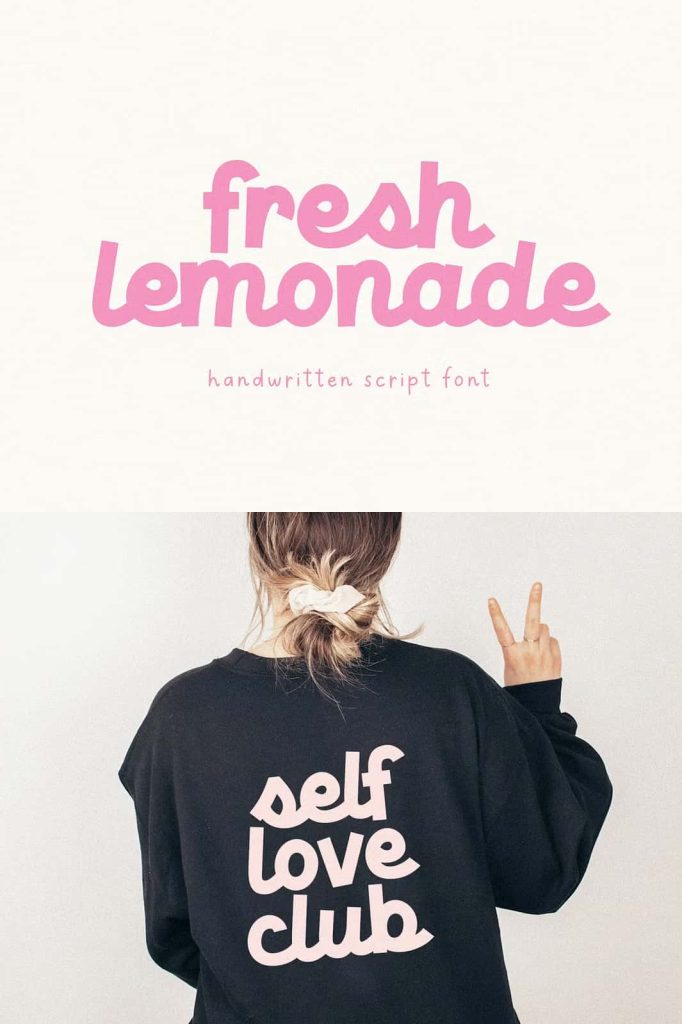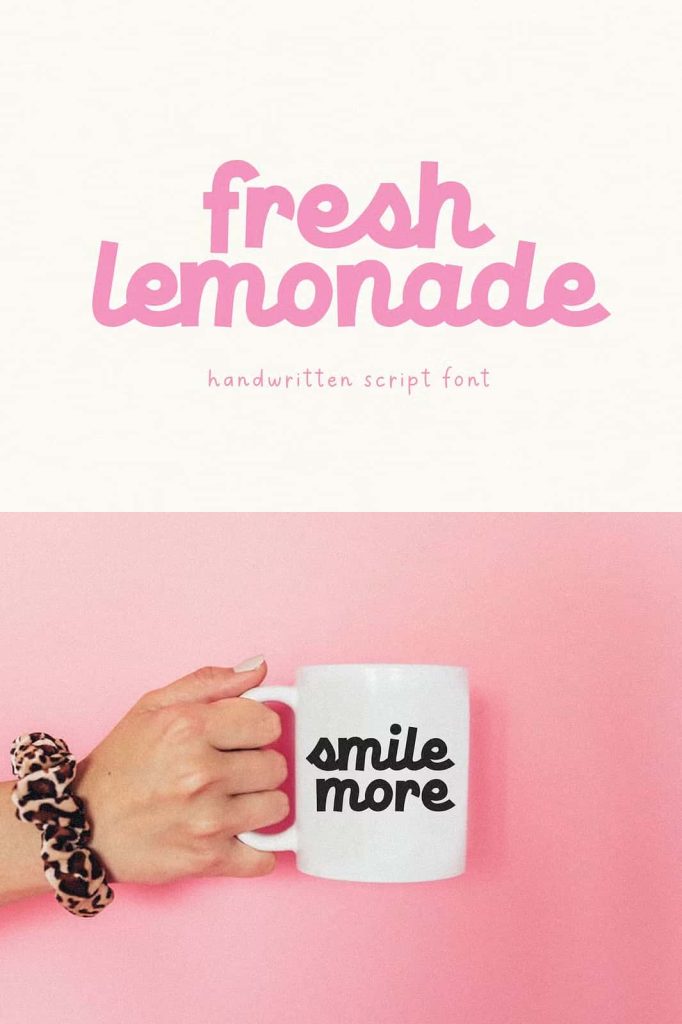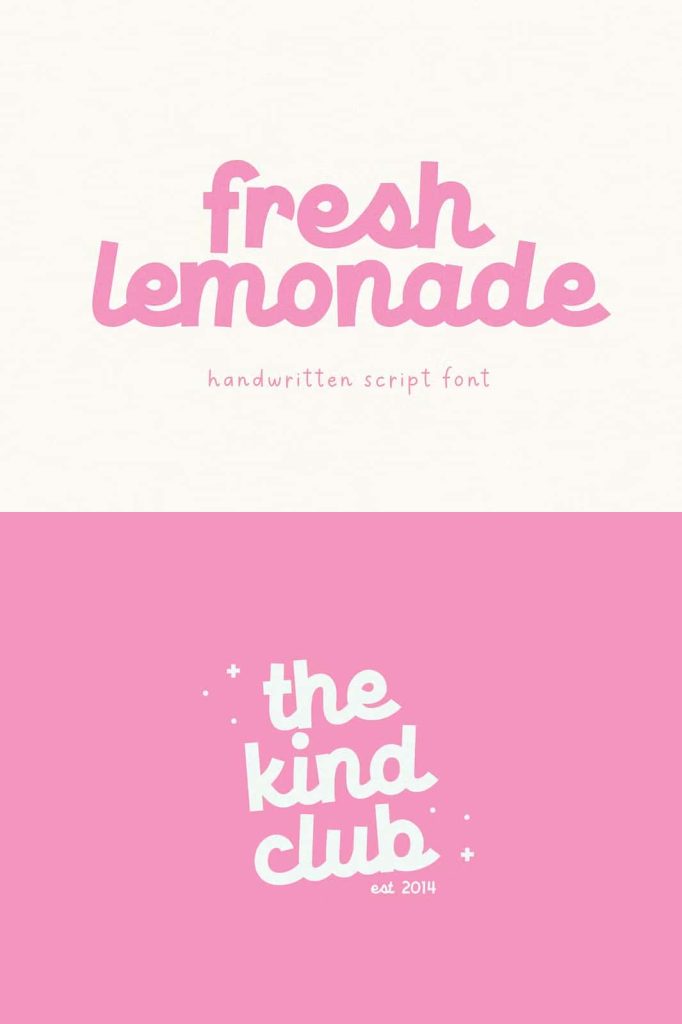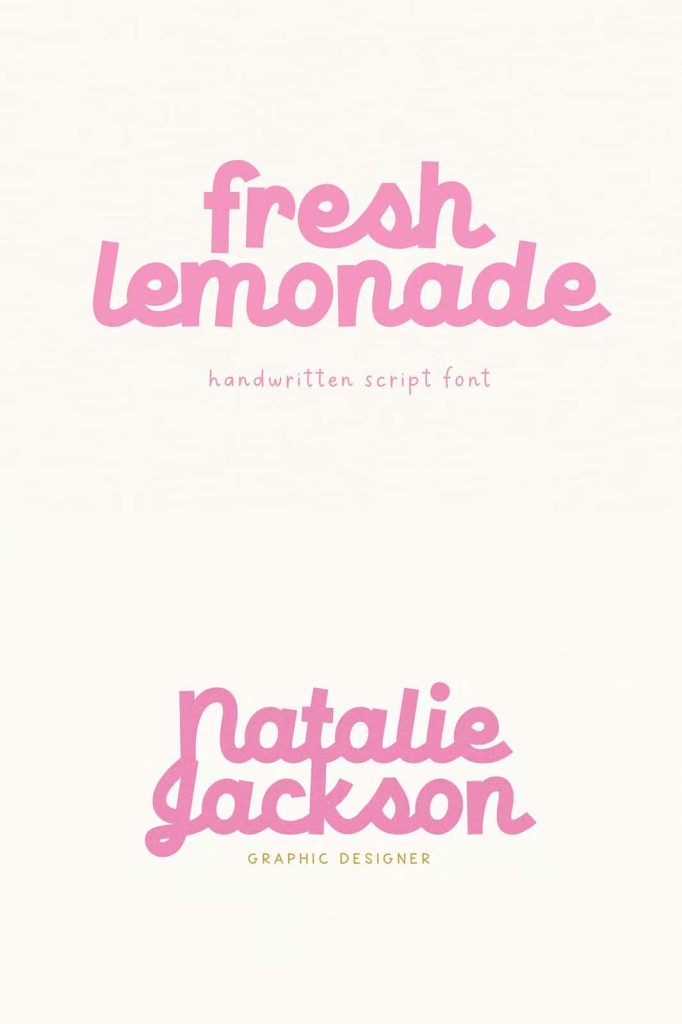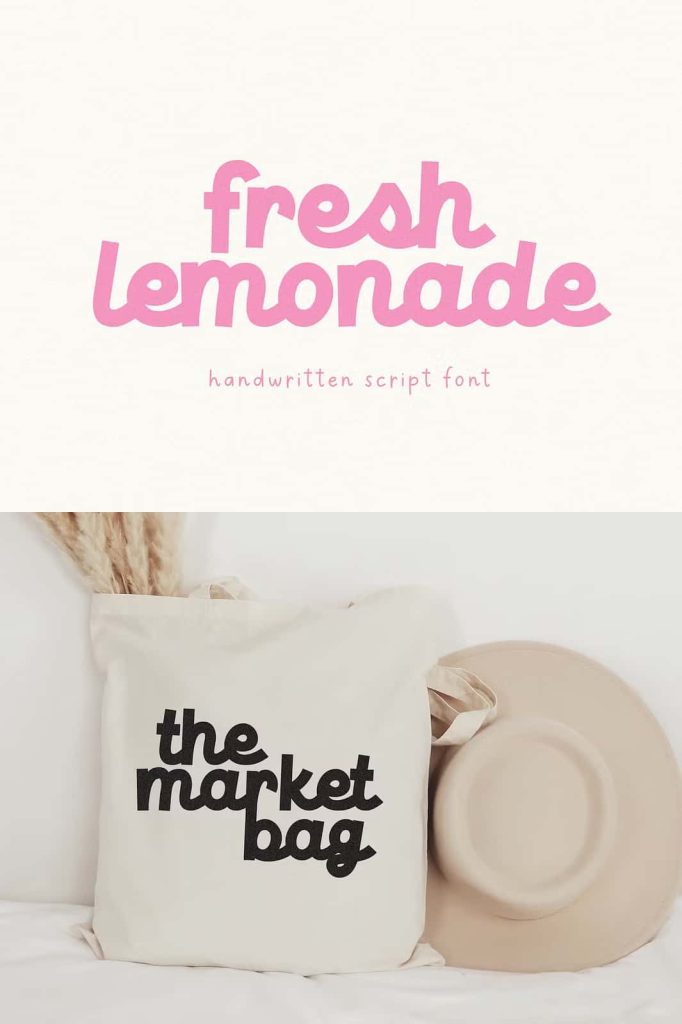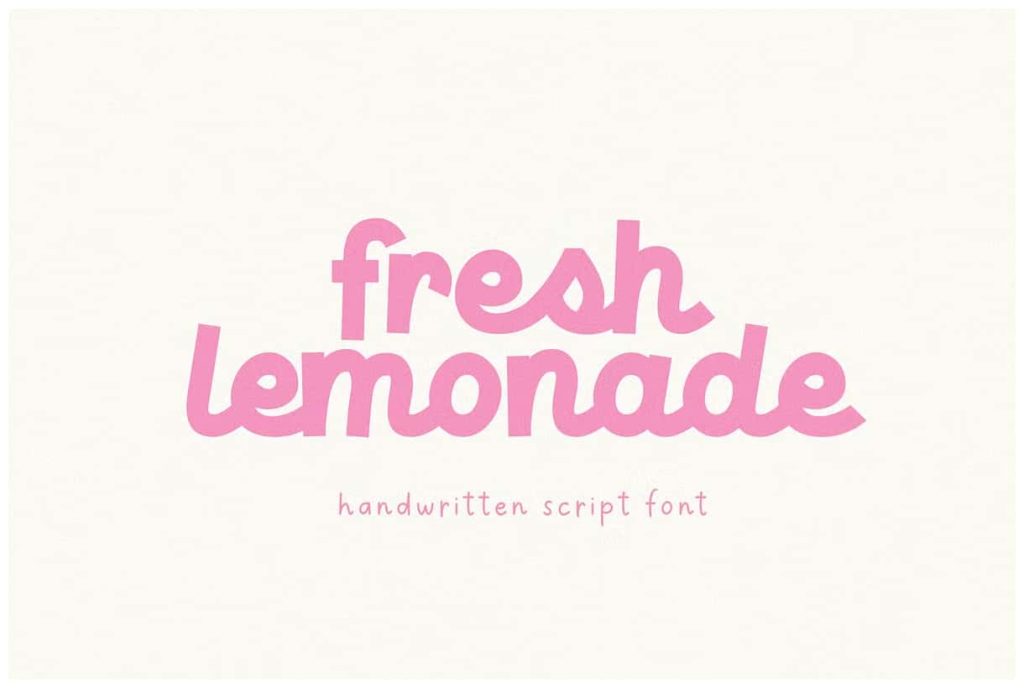
Fresh Lemonade | Script FontleastedApril 30, 2025Fonts Fresh Lemonade is a handwritten script font. This font is perfect for your retro designs Download